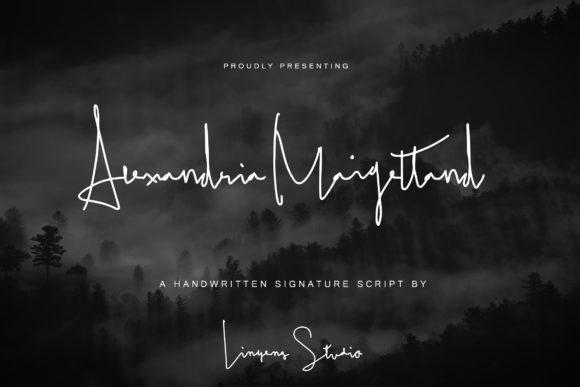
Discover the Elegance of Alexandria Maigettand Font
Are you on the hunt for a font that exudes sophistication, elegance, and a touch of modern flair? Look no further than the stunning Alexandria Maigettand Font. This exquisite handwritten font is meticulously crafted to capture the hearts of designers and crafters alike, making it a true favorite in the world of typography.
The Perfect Blend of Classic and Contemporary
Alexandria Maigettand Font masterfully strikes a balance between classic calligraphic influences and contemporary freshness. Its elegant strokes and fluid letterforms evoke a sense of luxury and refinement, while its modern twist ensures it remains relevant and versatile. Whether you’re working on a high-end branding project, a stylish wedding invitation, or a sophisticated digital platform, this font is sure to elevate your design to new heights.
Unleash Your Creativity with Alexandria Maigettand
With Alexandria Maigettand Font, the possibilities are endless. Its beautiful, hand-crafted lettering will add a touch of warmth and personality to any project. Imagine using it to:
Why Choose Alexandria Maigettand Font?
So, what sets Alexandria Maigettand Font apart from other fonts in the market? Here are just a few reasons why designers and crafters are falling in love with this exquisite font:
- Unique and distinctive: Alexandria Maigettand Font boasts a one-of-a-kind design that will make your projects stand out from the crowd
- Highly versatile: Its elegant and modern aesthetic makes it suitable for a wide range of applications, from print to digital
- Easy to read and use: The font’s clear and flowing letterforms ensure excellent legibility, making it perfect for body text and headlines
Tips for Using Alexandria Maigettand Font
In conclusion, Alexandria Maigettand Font is an exceptional handwritten font that will undoubtedly become a favorite among designers and crafters. Its masterful blend of classic calligraphic influences and modern freshness makes it the perfect choice for a wide range of projects. Whether you’re looking to create a stunning brand identity, a beautiful wedding invitation, or a sophisticated digital platform, this exquisite font is sure to elevate your design to new heights. So why wait? Fall in love with Alexandria Maigettand Font and bring your projects to the highest levels!